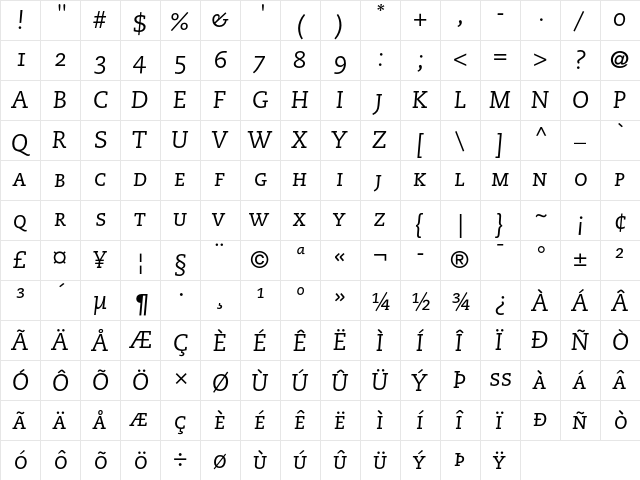
PMN Caecilia 56 Italic SC
Design Context for PMN Caecilia Typeface
PMN Caecilia offers clean, dependable letterforms without strong stylistic allegiance, making it a practical choice for designers who need flexibility. The dynamic lean of this cut emphasises speed and emphasis in any layout.
Pro Tip: Try PMN Caecilia for annotation and caption copy alongside an upright companion — the contrast in angle creates a dynamic but ordered typographic system.